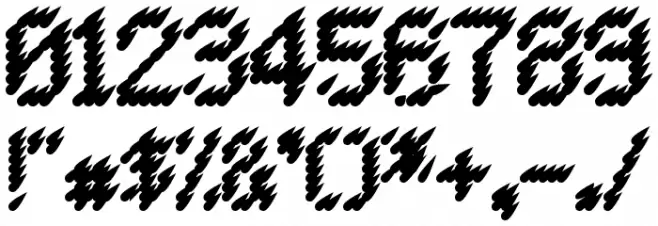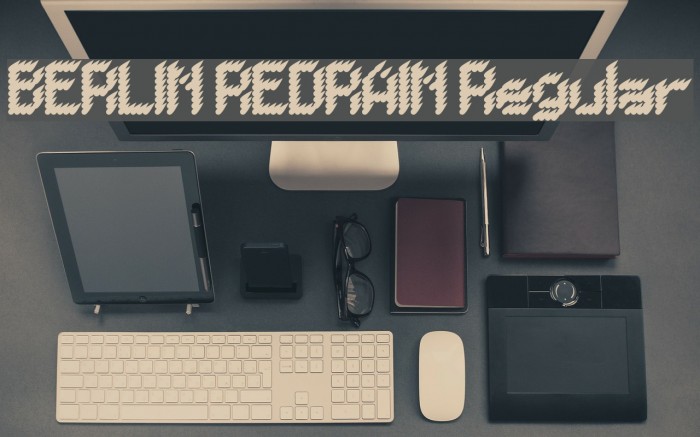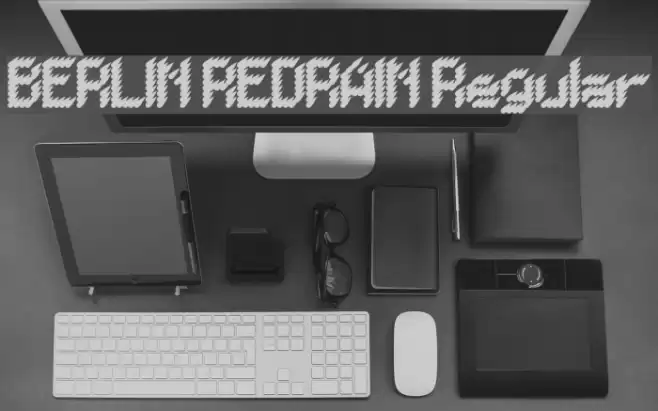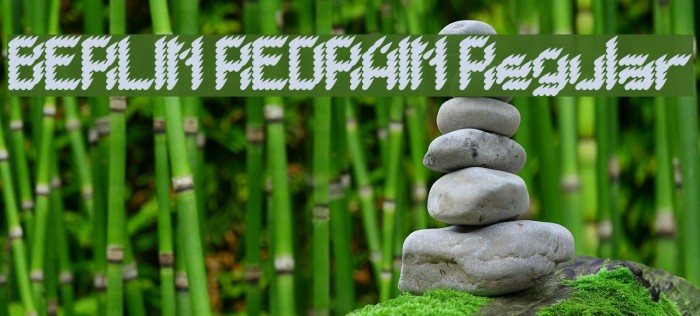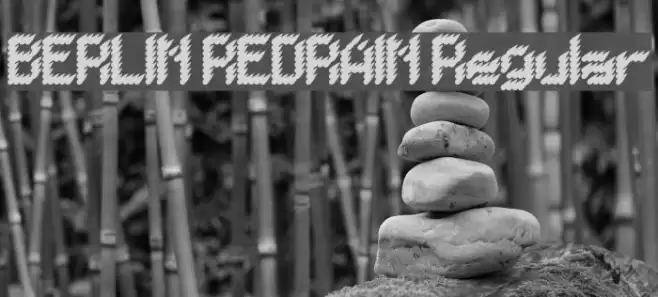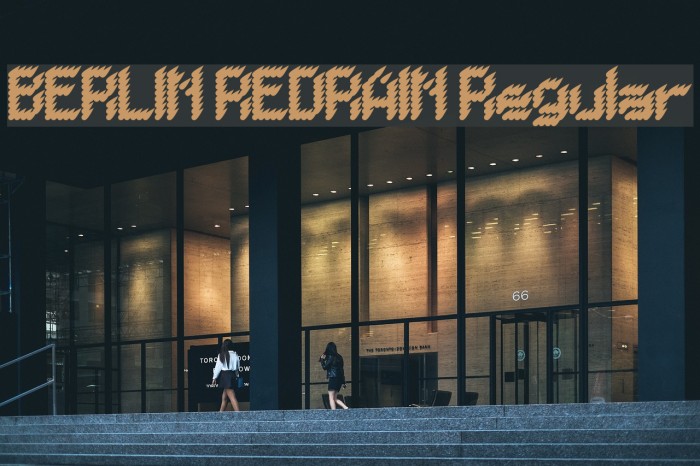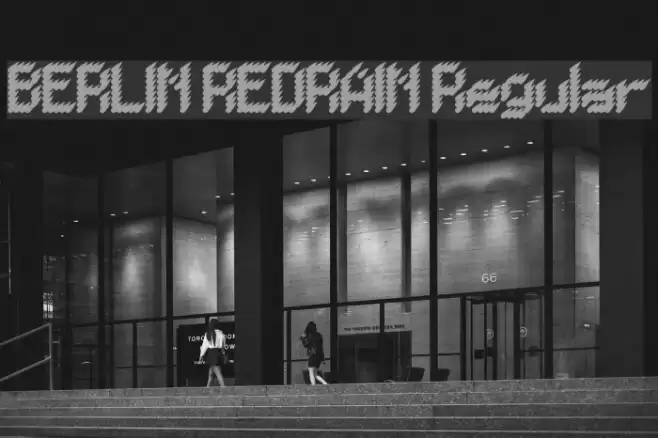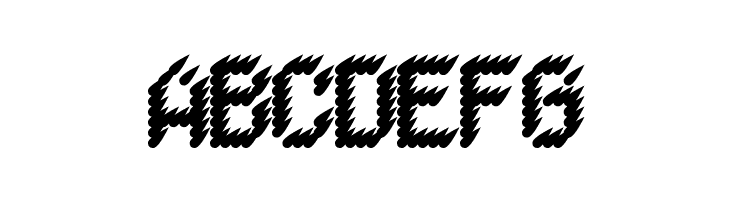
BERLIN REDRAIN Regular Font
BERLIN REDRAIN Regular Description
This font features a bold and dynamic design with a distinctive zigzag pattern running through each character, creating a sense of movement and energy. The uppercase and lowercase letters are consistent in style, with sharp angles and a uniform thickness that gives the font a cohesive look. The numbers and special characters maintain the same energetic style, making them easily recognizable and visually appealing. The overall appearance is striking and modern, suitable for projects that require a bold statement.
| Proposed Projects | Ideal for branding, posters, headlines, and any design project that requires a bold and energetic typeface. |